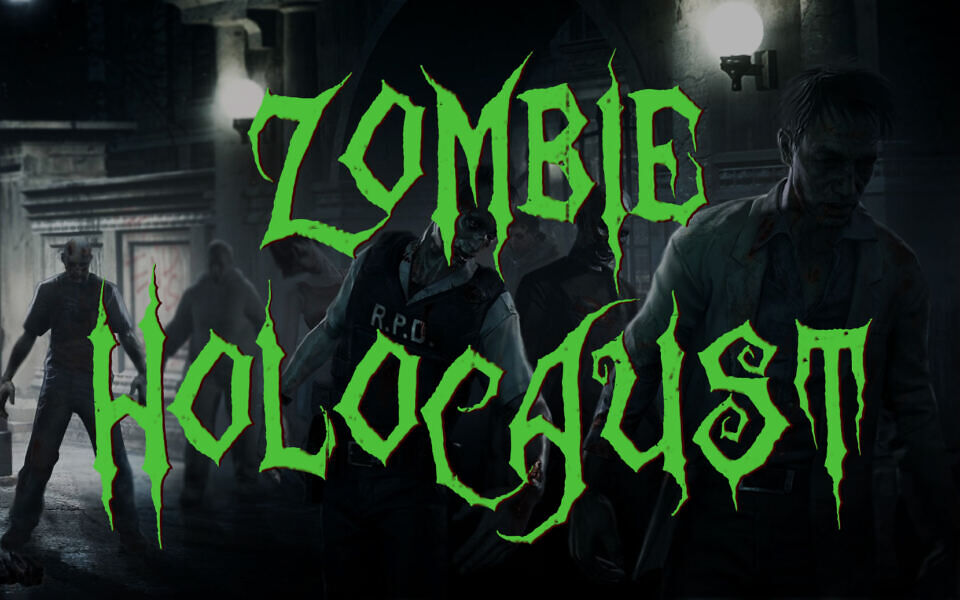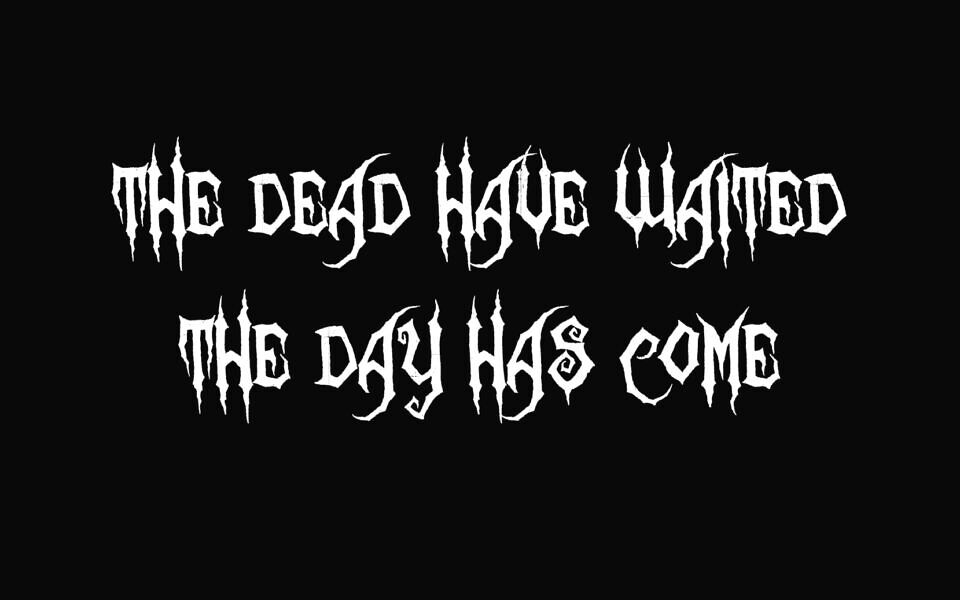
Zombie Holocaust Font
Zombie Holocaust is a cool horror font crafted by Sinister Fonts. This gothic horror typeface features jagged, spiked letters with a decayed, blood-dripped edge, perfect for zombie-themed designs, horror posters, and apocalyptic titles.
Inspired by classic zombie movie, “Day of the Dead” by, its rugged, uneven strokes evoke a gruesome undead vibe, ideal for graphic use. Zombie Holocaust font is freeand brings a macabre flair to your your creations with a terrifying zombie apocalypse aesthetic!